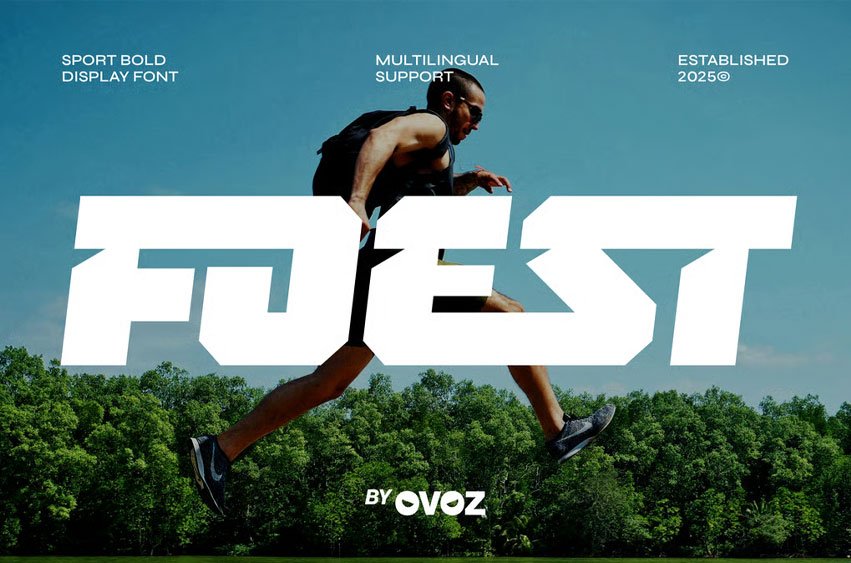
Foest Sports Font is a sport-bold display font engineered for designs that thrive on speed, motion, and high-intensity action. Its aggressive angles, aerodynamic structure, and sharp racing silhouette make it a perfect choice for sports branding, racing graphics, football promotions, basketball posters, baseball branding, and soccer visuals. Built with an athletic spirit, FOEST amplifies fitness campaigns, gym branding, golf events, and any bold sport project that needs precision, strength, and unstoppable momentum.
From number-based graphics to biker-inspired visuals, from hockey tournament posters to fight-night promotions, FOEST delivers a powerful sporty presence that commands attention. Its dynamic race-inspired shapes bring maximum impact to athletic advertisements, gym visuals, and competitive team identity. Whether you’re crafting visuals for high-energy sports or pushing adrenaline-driven race concepts, this font ensures every message hits fast, hard, and with undeniable athletic confidence.
Bold Moves, Strong Letters — where dynamic sport energy meets modern precision to create a fearless competitive identity.